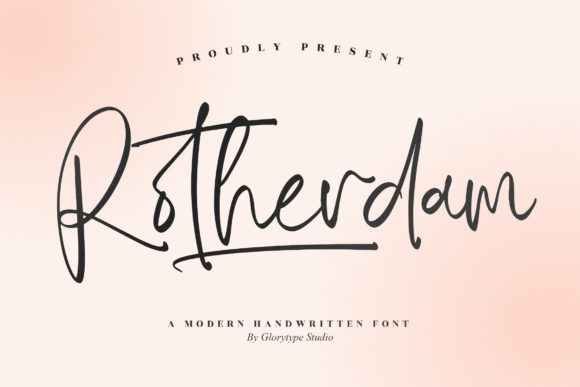
Embark on a captivating journey with Rotherdam, a script font that exudes elegance and charm. Its flowing letters, reminiscent of a delicate pen stroke, will add a touch of sophistication to your creations.
Indulge in its timeless appeal and witness how this font transforms your designs into works of art. Whether you're crafting brochures that leave a lasting impression or adding a personal touch to your invitations, Rotherdam will elevate your creations to new heights.
Its PUA encoding unlocks a treasure trove of glyphs and ligatures, empowering you to express yourself with unparalleled creativity. Fall head over heels for Rotherdam's distinct and captivating style, and let your imagination soar.
Embrace the magic of Rotherdam and unlock the boundless possibilities of your design endeavors. Let its enchanting curves and elegant lines captivate your audience, leaving them with a lasting impression that will forever be etched in their memory. Dive into the world of Rotherdam and experience the beauty of typography at its finest!